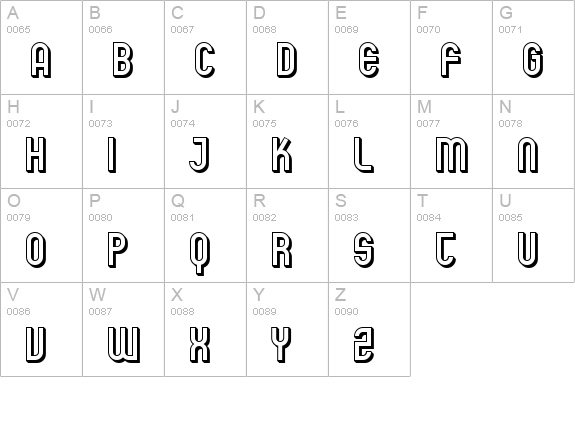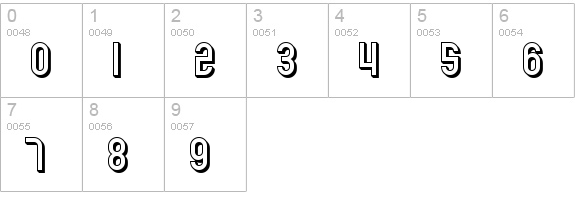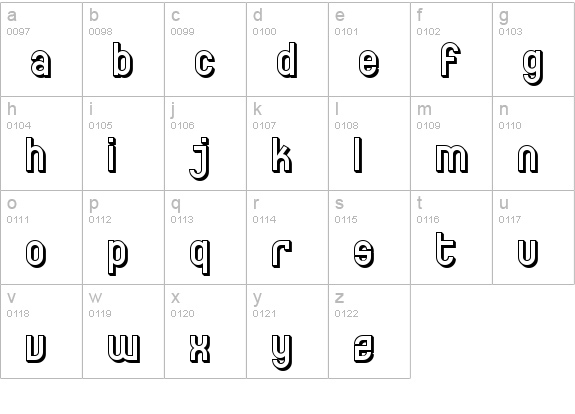
SF Eccentric Opus Shaded Font Details
SF Eccentric Opus Shaded font is a truly unique and eye-catching typeface that will make your designs stand out from the crowd. With its eccentric and unconventional letterforms, this font is perfect for projects that require a touch of quirkiness and originality. The SF Eccentric Opus Shaded font features a bold and striking design, with each letter adorned with intricate and intricate shading. This adds depth and dimension to your text, making it visually captivating and compelling. Whether you're working on a poster, logo, branding project, or any other creative endeavor, SF Eccentric Opus Shaded font will bring a sense of playfulness and creativity to your designs. Its unconventional and offbeat style is sure to grab the attention of your audience and leave a lasting impression. What's even better is that SF Eccentric Opus Shaded font is available for free download at FontsMarket.com. This means that you can easily access and use this font in your projects without any cost. It's a fantastic opportunity to add a touch of eccentricity and personality to your designs, all without breaking the bank. So why wait? Download SF Eccentric Opus Shaded font today and let your creativity soar. With its unique design and freely available nature, this font is sure to become a valuable addition to your design toolkit. Get ready to make a statement and unleash your imagination with SF Eccentric Opus Shaded font.